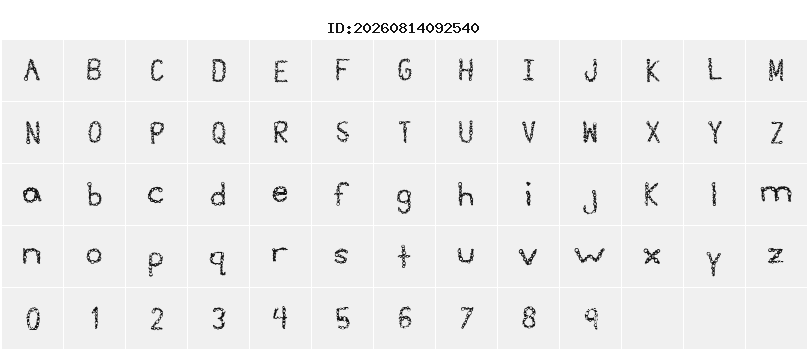
• Font Name: Suds
• Designer: Holiday Donaldson
About Suds.ttf
Suds.ttf is a modern, elegant sans-serif font designed for ultimate readability and visual harmony. Perfect for branding, headlines, web design, and print materials.